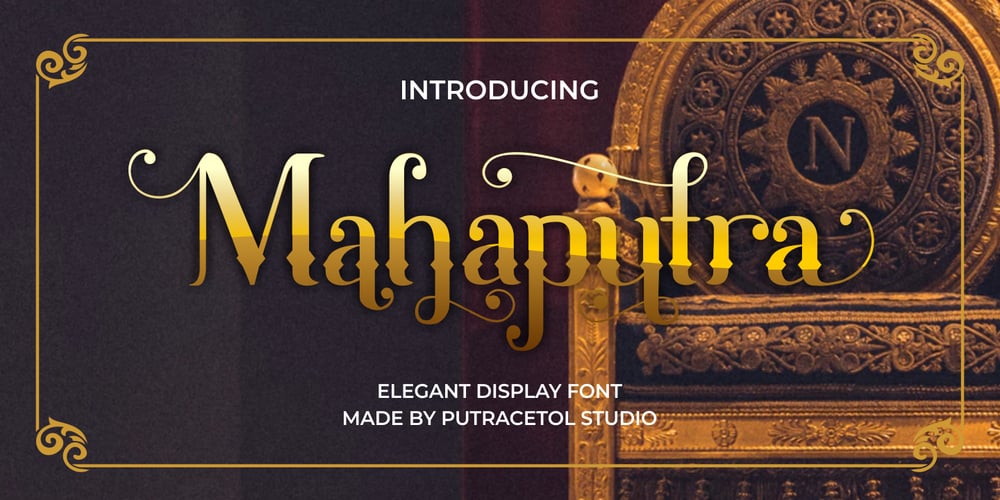
Mahaputra
Mahaputra font
Mahaputra Font Family was designed by Putra Novembria Candra Kusuma and published by Putracetol. Mahaputra contains 1 styles and family package options. Mahaputra is a vintage display font that is classic, elegant, and unique. Mahaputra is great for any kind of display purpose from logos, t-shirt, apparel, quotes, product packaging, tittle headers, posters, merchandise, social media, labels, branding and greeting cards.